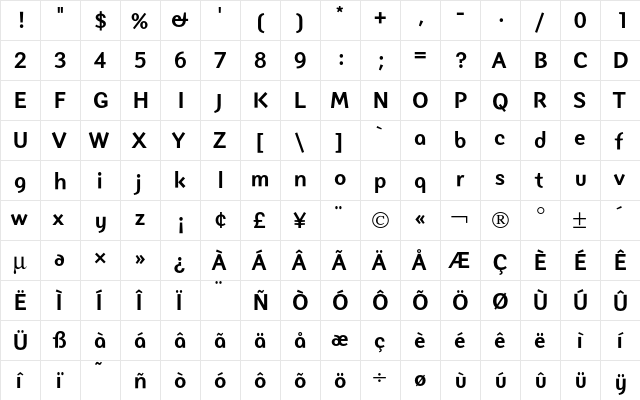
NatWest TextBold
Design Context for NatWest Typeface
NatWest offers clean, dependable letterforms without strong stylistic allegiance, making it a practical choice for designers who need flexibility. Its bold stroke weight gives it real presence on the page.